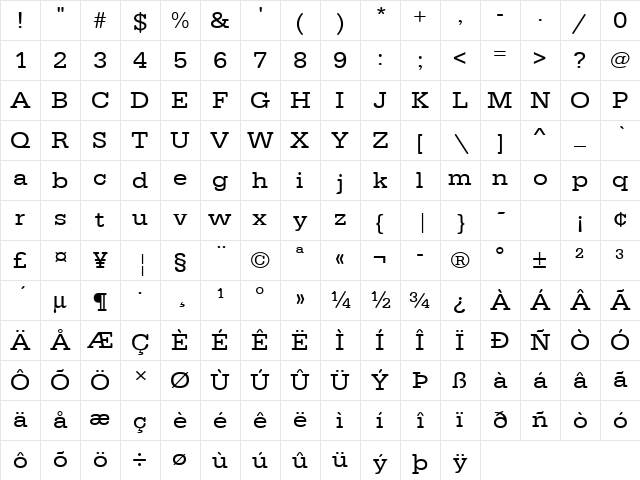
URWTypewriterTExtWid uses fixed-width spacing throughout, giving it the structured, systematic character associated with coding environments and technical documentation.